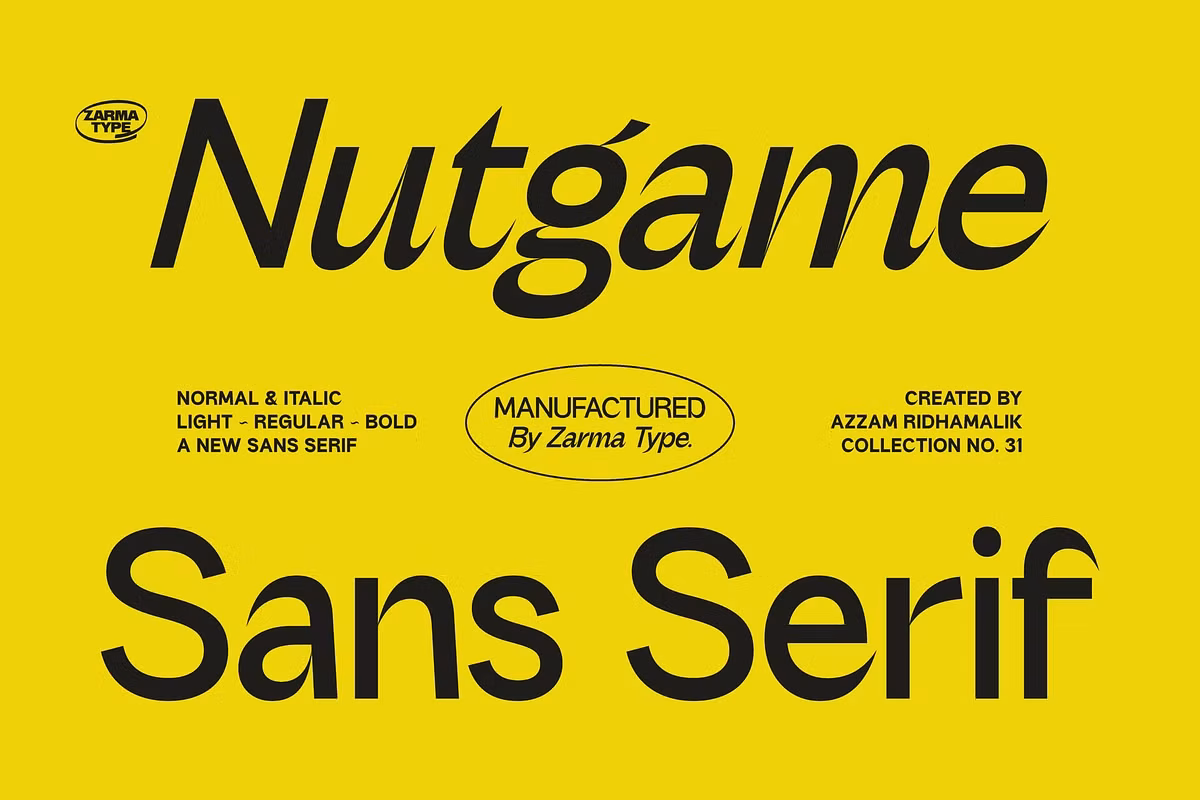
Nutgame - Sans Serif Font Free Download is a bold and playful typeface with a modern, minimalist edge. Its clean lines and quirky character shapes make it perfect for gaming graphics, tech branding, creative posters, YouTube thumbnails, and eye-catching social media content that needs both clarity and personality.
Nutgame - Sans Serif Font Free Download offers a strong visual presence while maintaining excellent legibility, making it ideal for both display and headline use. Whether you're working on digital content or bold branding, this font brings a fresh, energetic vibe to your design. Download it now and level up your typography with Nutgame’s sleek, modern style.